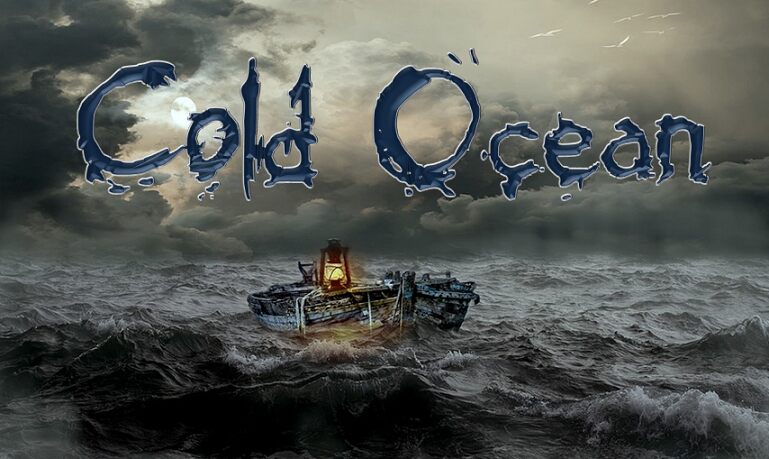
Cold Ocean Regular
This font emotes a cold, abandoned, mysterious, and at times, old century look. The background image is by Myriams-Fotos at Pixabay. If you want to use this font commercially, it is 99c at https://f2u.page.link/17ZT Thank you!